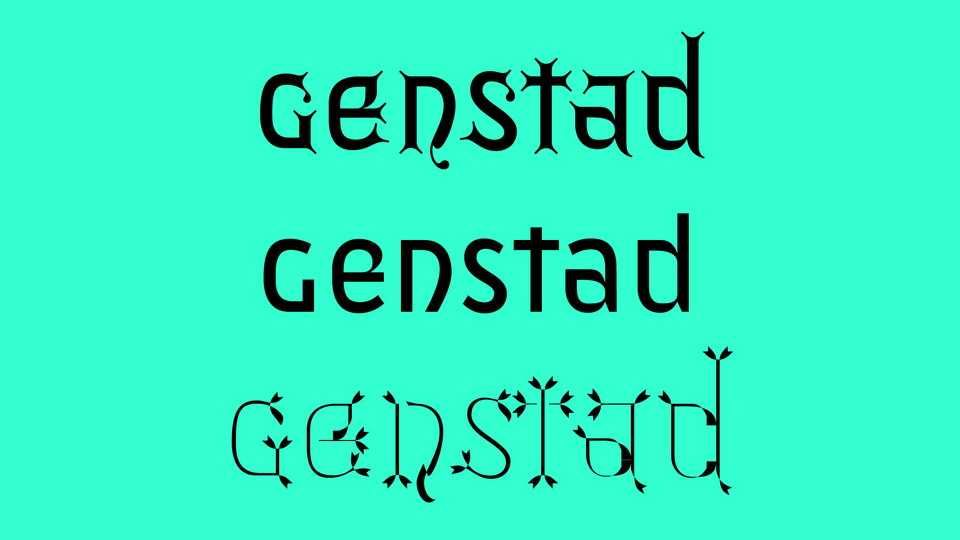
Download Duvel font family, a typeface with ornamental alphabet, structures sometimes gothic, sometimes organic. 3 fonts form a family very characteristic, reserved principally for titling, with the sans version that could suffer longer texts.
Designer: Studio Triple